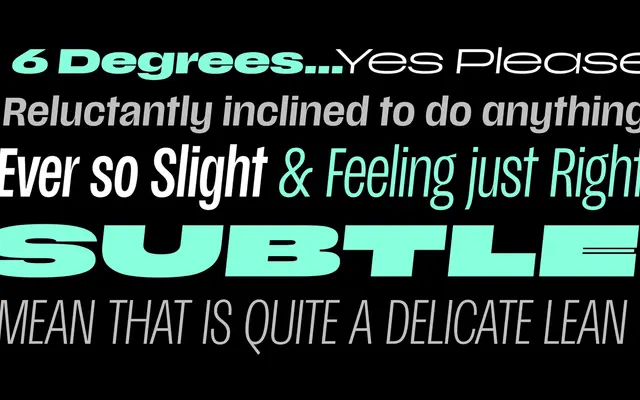
A 72-style grotesque family spanning six widths from Extra Condensed to Super Extended, with matching italics and a double-axis variable font.
Covering six weights and six widths, Scale offers an unusually broad range for a single grotesque family, from tight Extra Condensed settings to an extreme Super Extended suited to large-scale display use. OpenType alternates include spurless G, double-storey g, diagonal K and k, schoolbook a and crossbar I, giving designers meaningful control over the character of the letterforms. Available as a double-axis variable font interpolating across both weight and width axes simultaneously.
A contemporary grotesque sans with alternating character forms available via OpenType features, spanning an unusually wide range of widths from Extra Condensed to Super Extended.